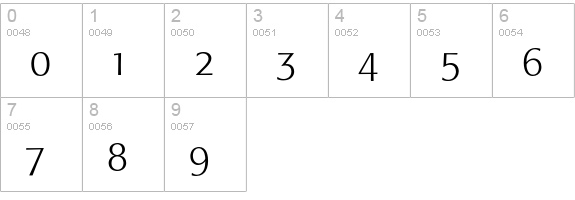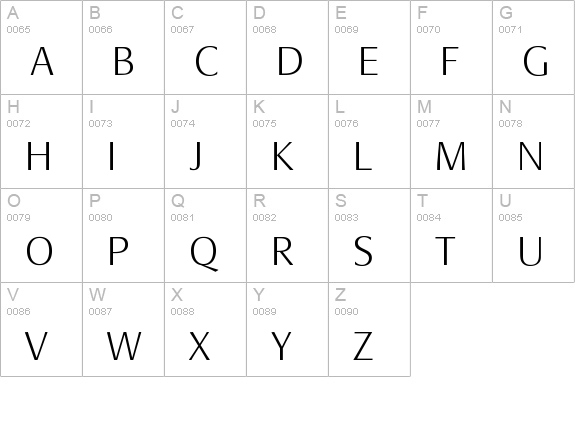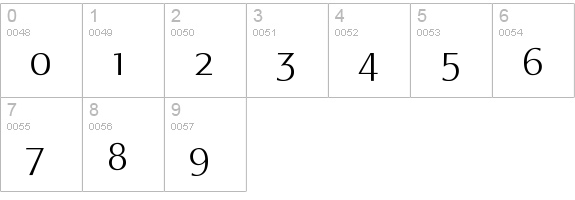
Signata Expert Light is a refined, elegant variant in the Signata typeface family \xE2\x80\x94 well suited to elegant body text, refined sub-headings, and luxury branding.
Signata Expert Light is a contemporary and elegant font that exudes sophistication and professionalism. Its clean lines and delicate curves make it perfect for a wide range of design projects, from branding and advertising to editorial and packaging. This font showcases a harmonious balance between simplicity and refinement, making it suitable for both digital and print applications. Whether used in body text or as a headline, Signata Expert Light adds a touch of class and legibility to any project. One of the best things about Signata Expert Light is that it is freely available to download at FontsMarket.com. This means that designers, creatives, and typographers can access this incredible font without any cost. With its high-quality design and versatility, Signata Expert Light is a valuable addition to any font collection. Signata Expert Light is designed with meticulous attention to detail, ensuring that each character is perfectly balanced and proportioned. The consistent stroke thickness and subtle variations in letterforms create a sense of harmony and elegance that is truly captivating. The versatility of Signata Expert Light is further enhanced by its extensive language support, making it suitable for projects targeting a global audience. From English to Spanish, French to German, this font ensures that your message is delivered with clarity and style. Whether you are working on a website, a logo, a brochure, or any other design project, Signata Expert Light is a reliable choice. Its timeless beauty and modern sensibility make it an excellent font for both professional and personal use. So why wait? Take advantage of the opportunity to download Signata Expert Light for free at FontsMarket.com. Start elevating your designs with this exceptional font today and watch as your creations come to life with elegance and sophistication.